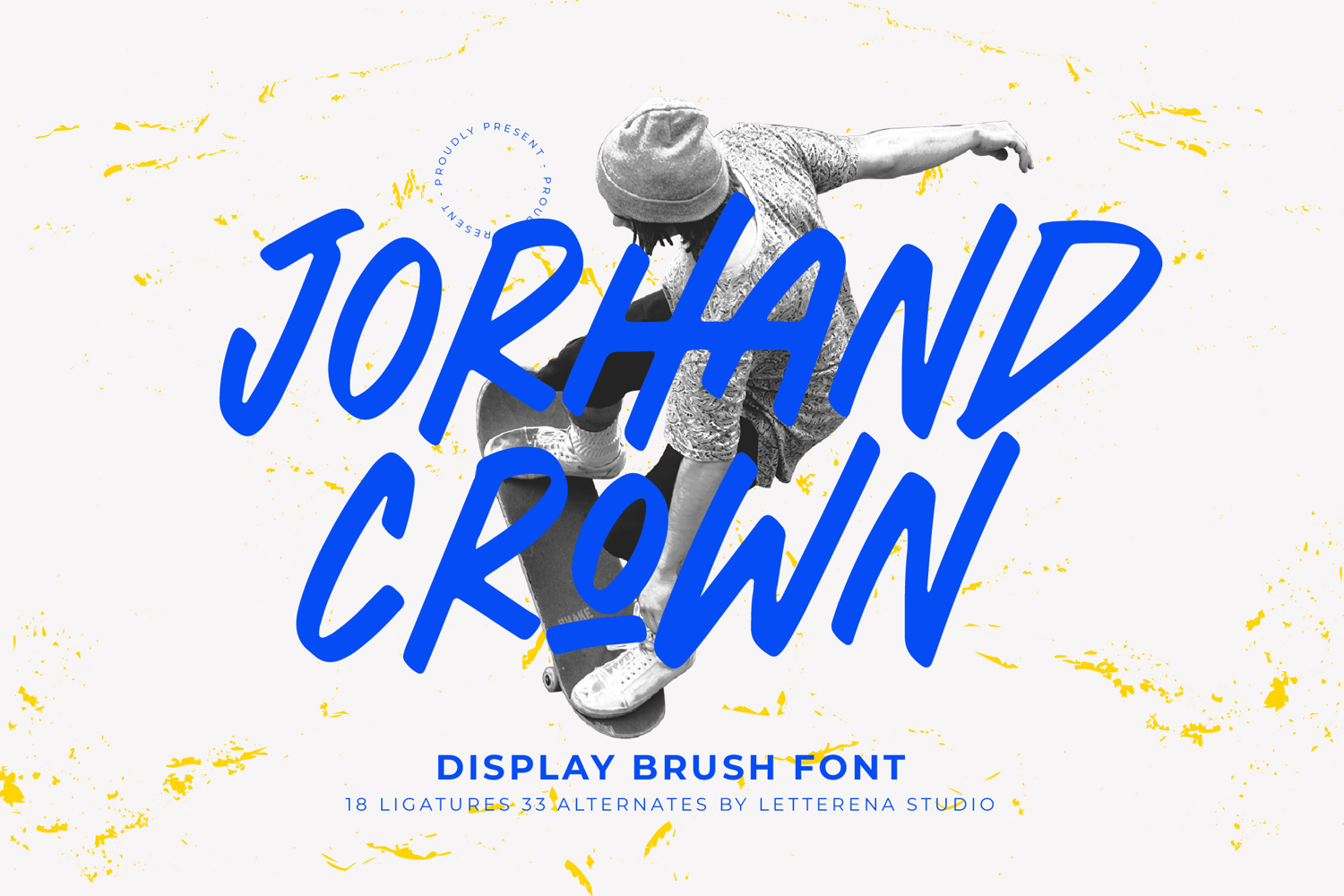
Jorhand Crown - Display Brush Font
Jorhand Crown Italic
Jorhand Crown
Jorhand Crown - Display Brush Font , from Letterena, is a Luxury Script font, suitable for any projects such as: logos, branding projects, homeware designs, product packaging, mugs, quotes, posters, shopping bags, t-shirts, book covers, name card, invitation cards, greeting cards, label, photography, watermark, special events, and all your other luxury and beautiful projects that need a Luxury Script taste.
18 Ligature 33 Alternate & Swashes